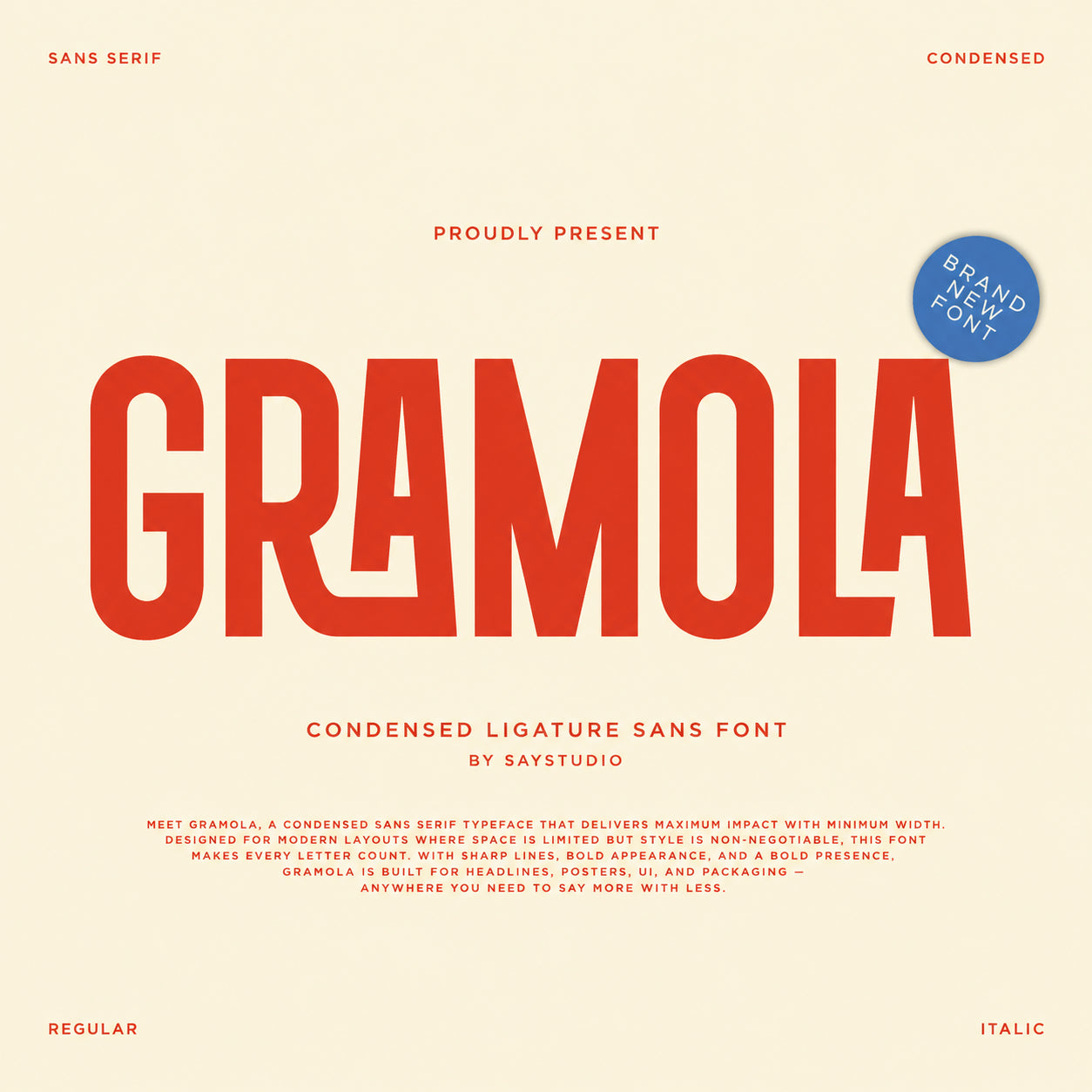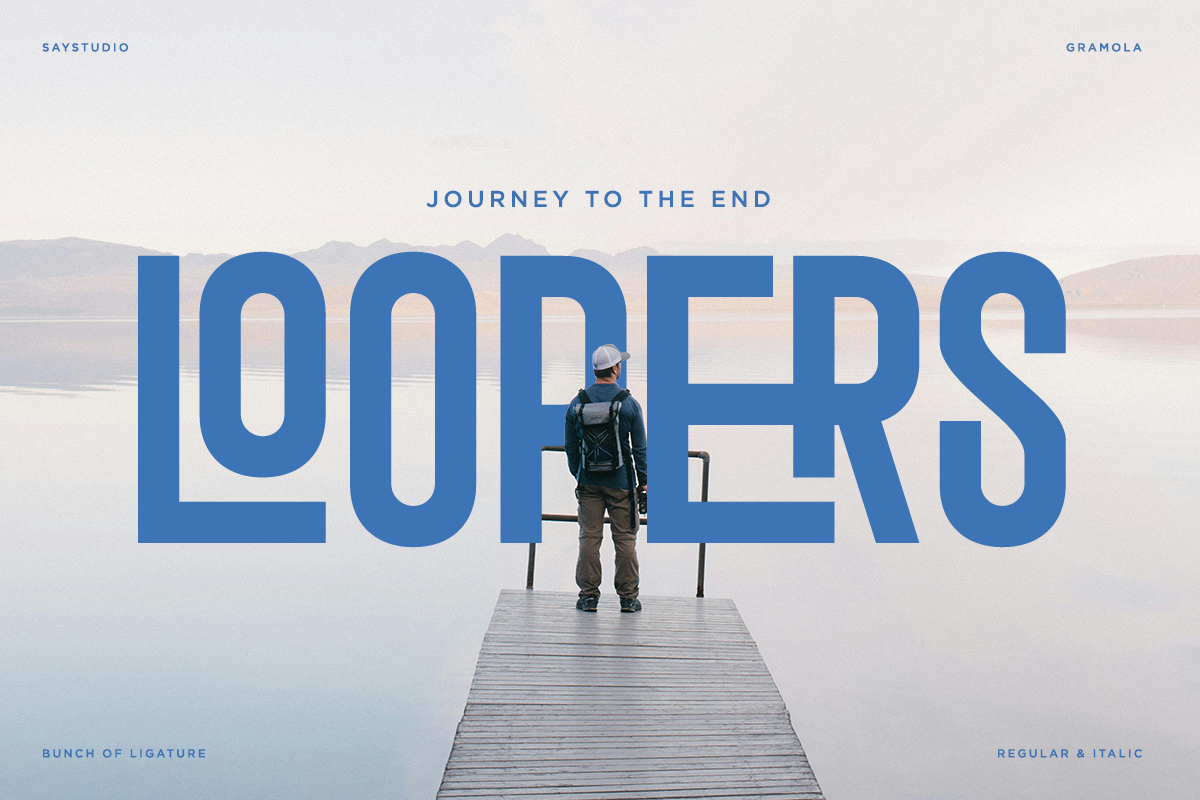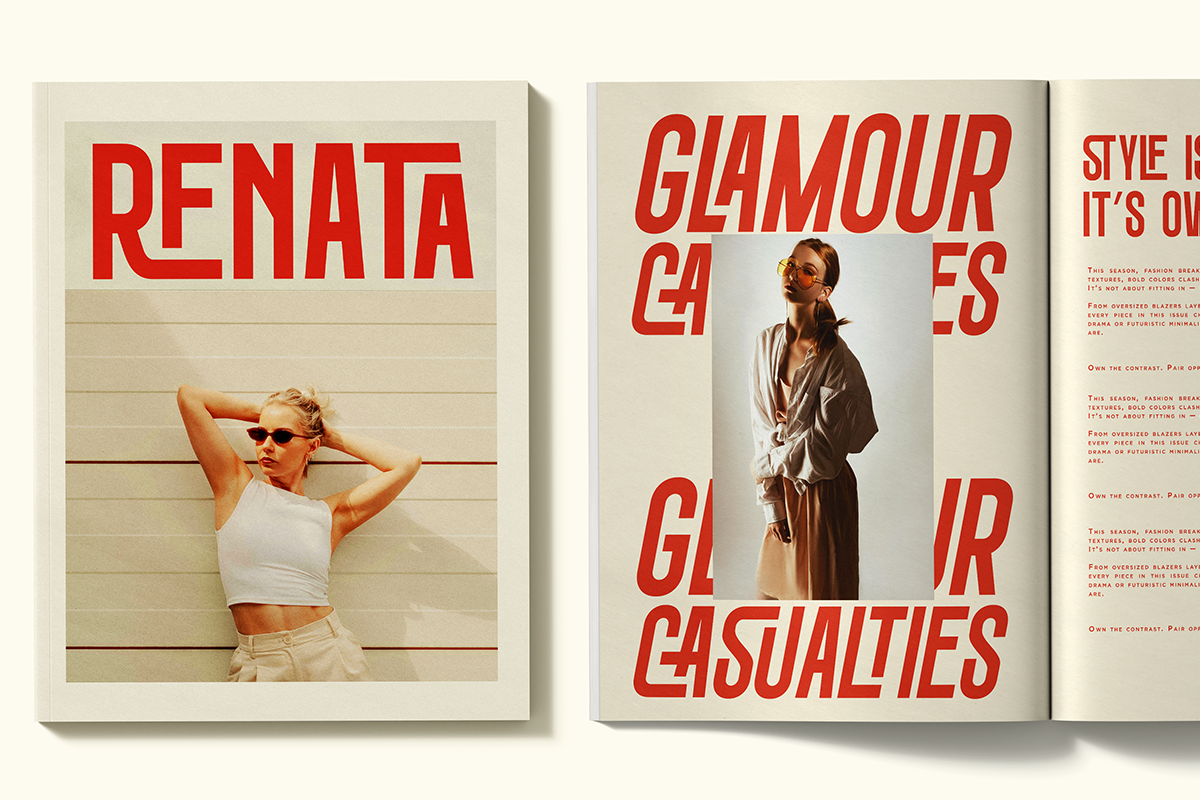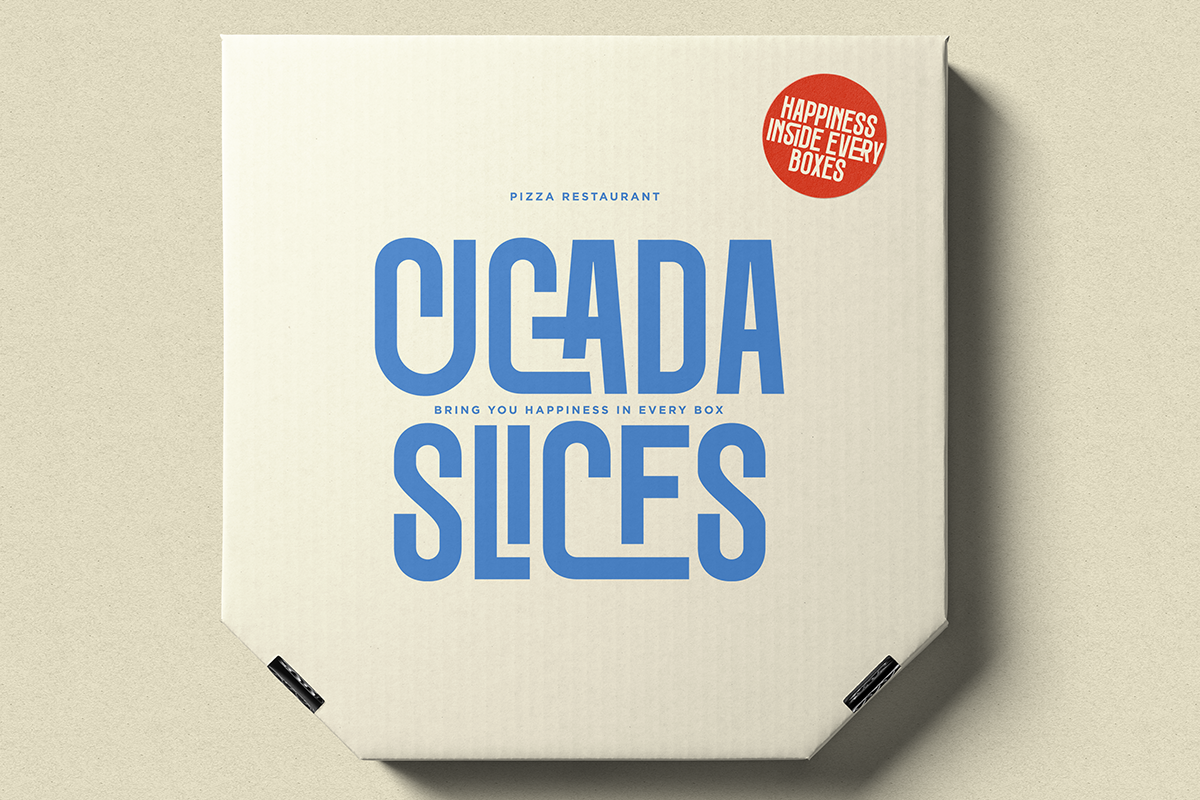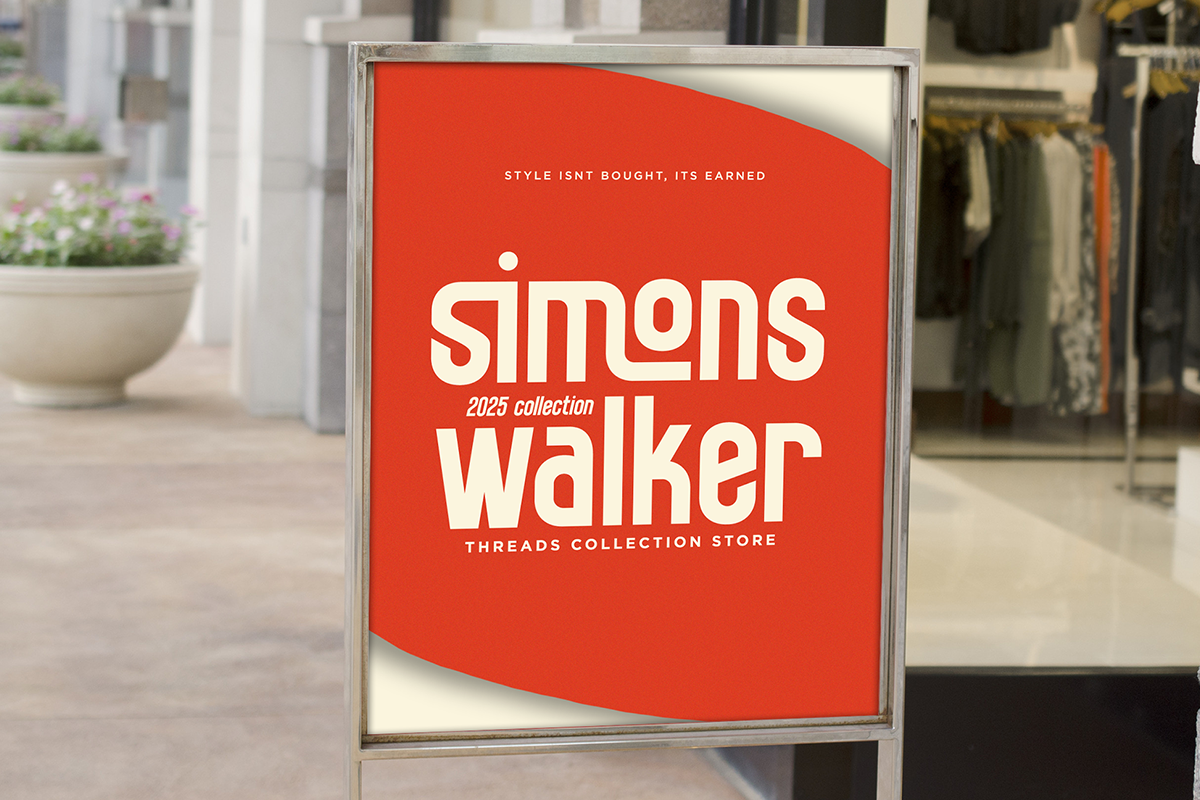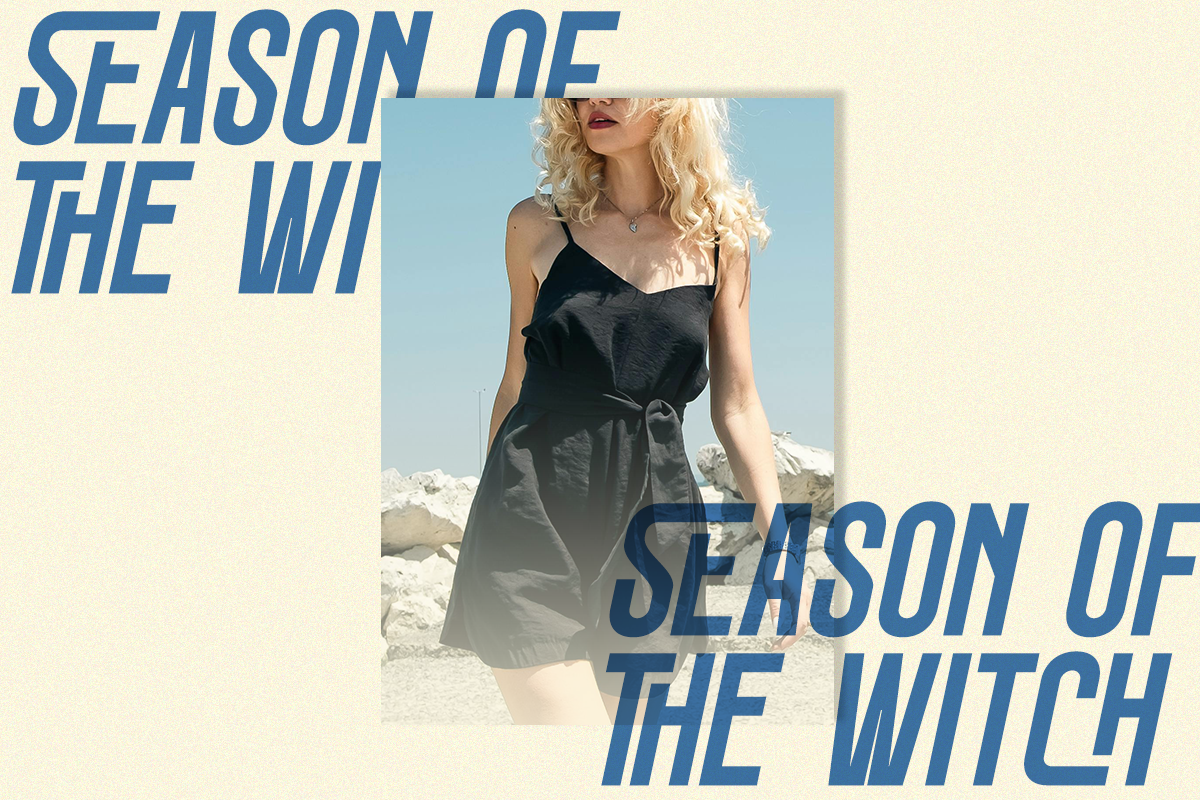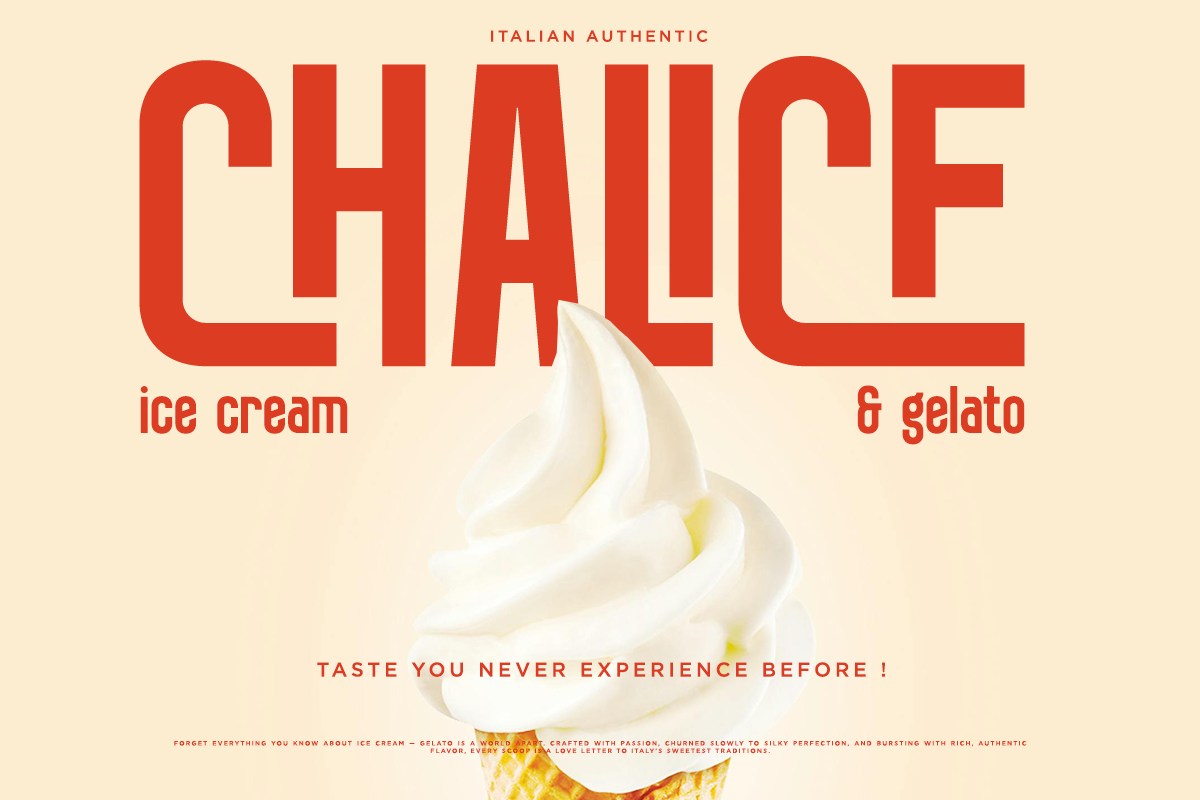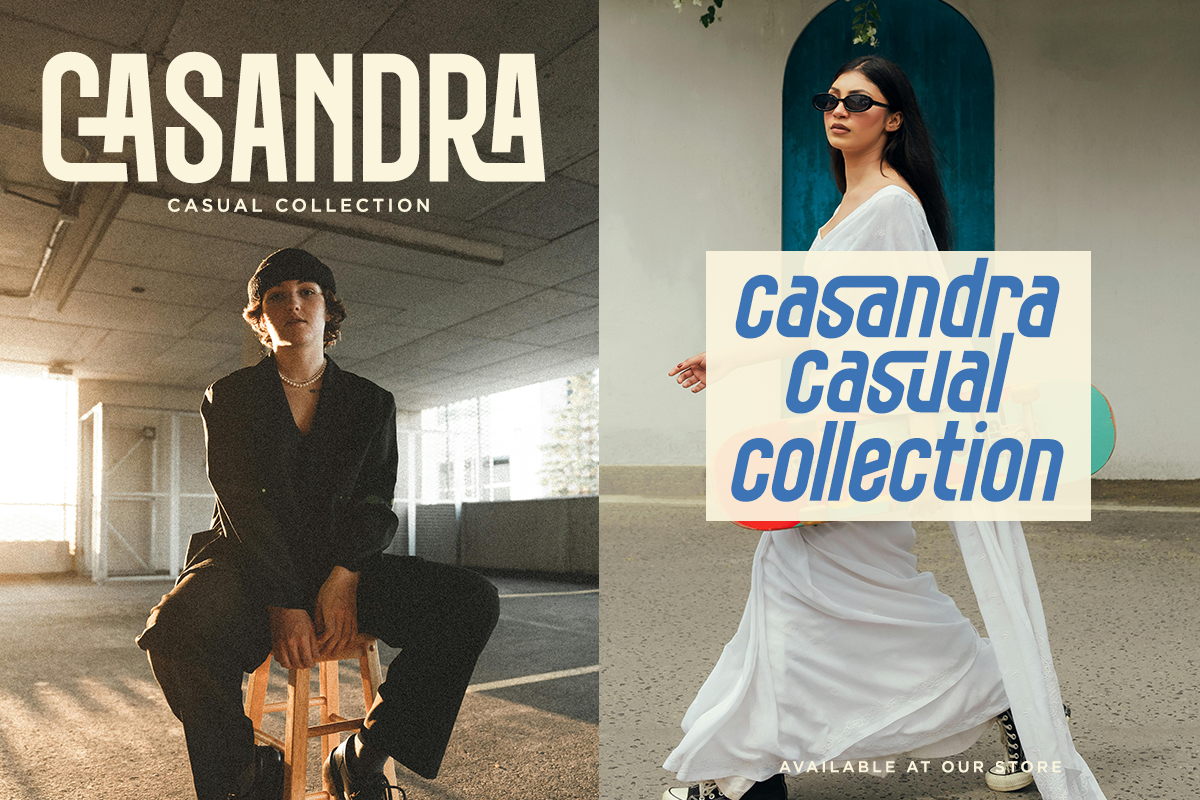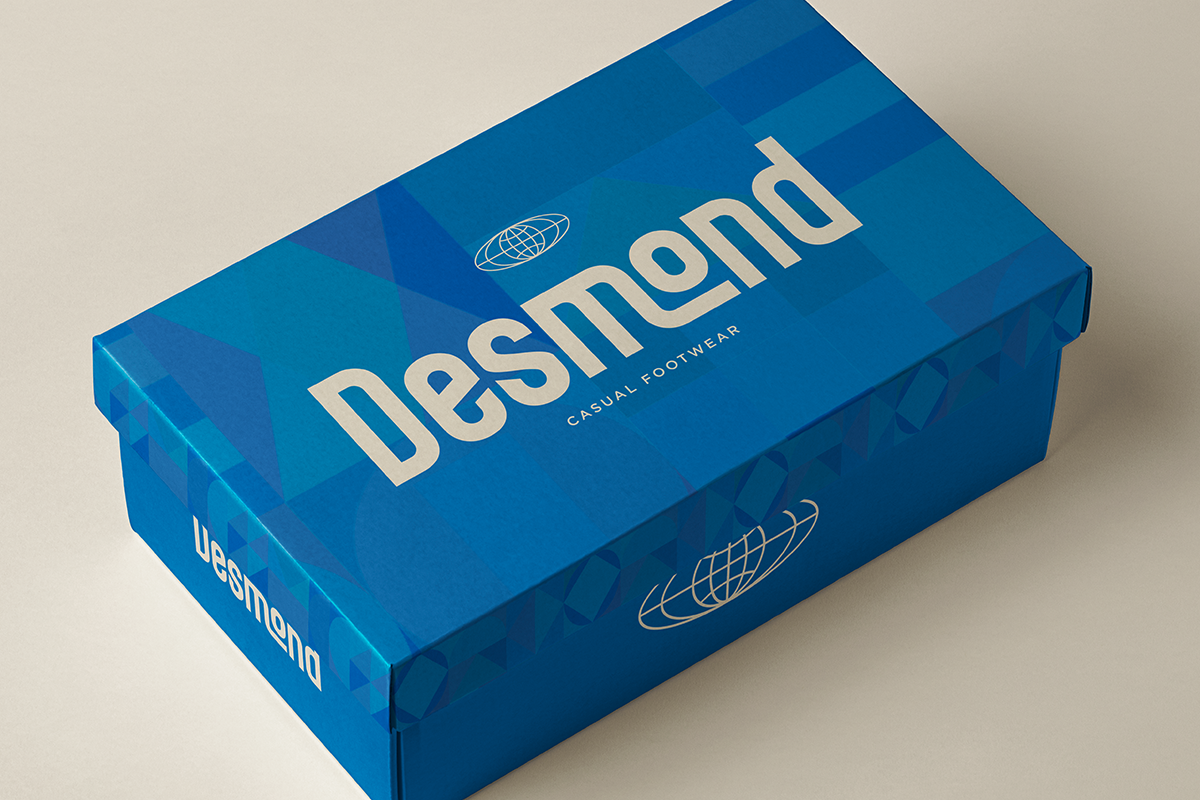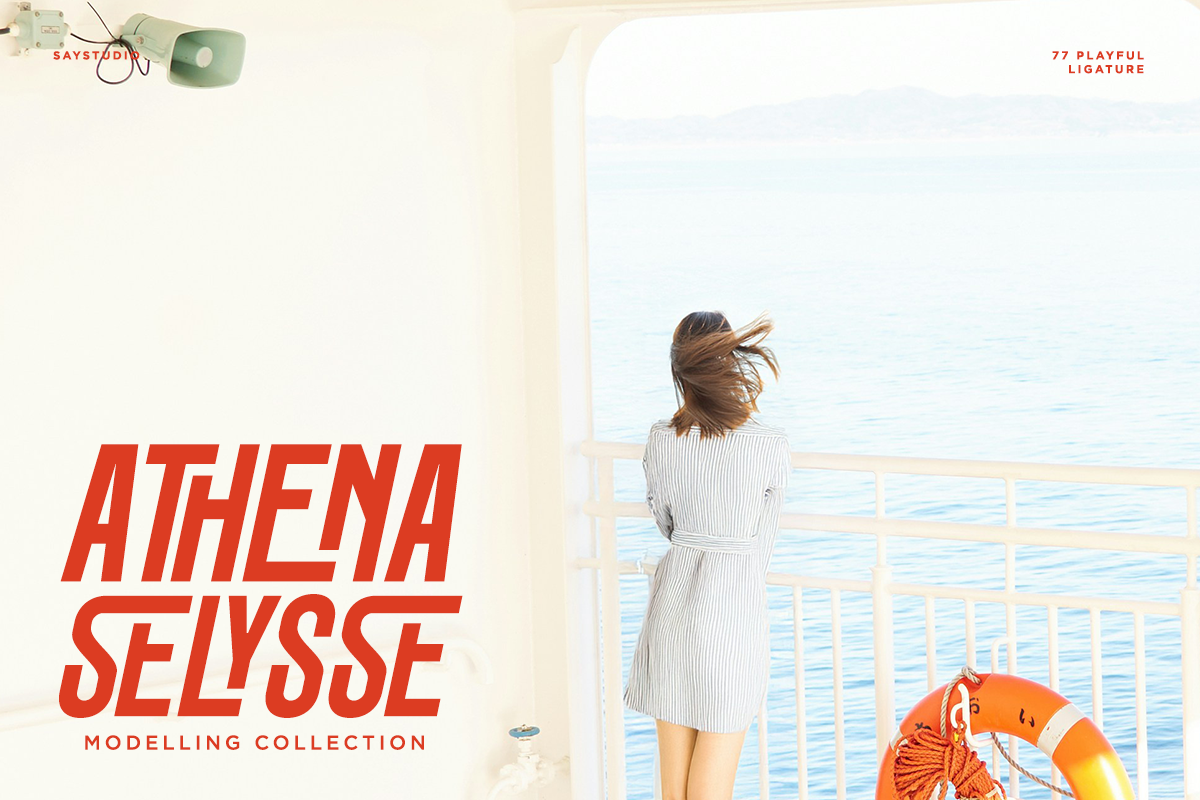
Gramola - Condensed Ligature Sans Serif Font
Gramola is a bold and modern condensed sans serif font designed for impactful headlines, stylish branding, and contemporary visual communication. Its tall, narrow proportions create a strong editorial character while maintaining a clean and versatile appearance.
With its distinctive condensed structure and bold presence, Gramola is perfect for creating eye-catching typography across branding, logos, posters, editorial layouts, magazines, fashion campaigns, advertising, packaging, signage, social media graphics, and display designs.
Gramola works especially well for large headlines and statement typography, making it a great choice for designers looking to create a confident, modern, and sophisticated visual identity.
Stylistic Ligatures
Gramola is a bold, condensed sans serif font with tall, narrow proportions, available in Regular and Italic styles with stylistic ligatures. It includes uppercase and lowercase characters, numbers, symbols, punctuation, and multilingual support, provided in OTF, TTF, and WOFF formats.